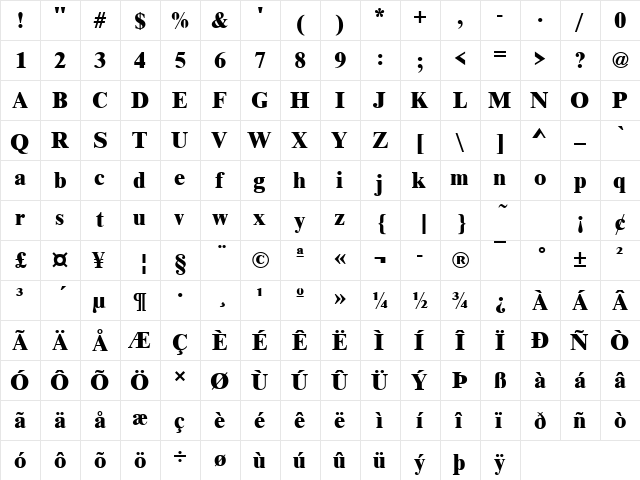
Nimbus Roman Becker No9TExtBol Regular Font Preview
Nimbus Roman Becker No9TExtBol Regular
Design Context for Nimbus Roman Becker No9TExtBol Typeface
Nimbus Roman Becker No9TExtBol takes a measured approach to typography — its balanced proportions and neutral character make it a reliable workhorse for both digital and print work.